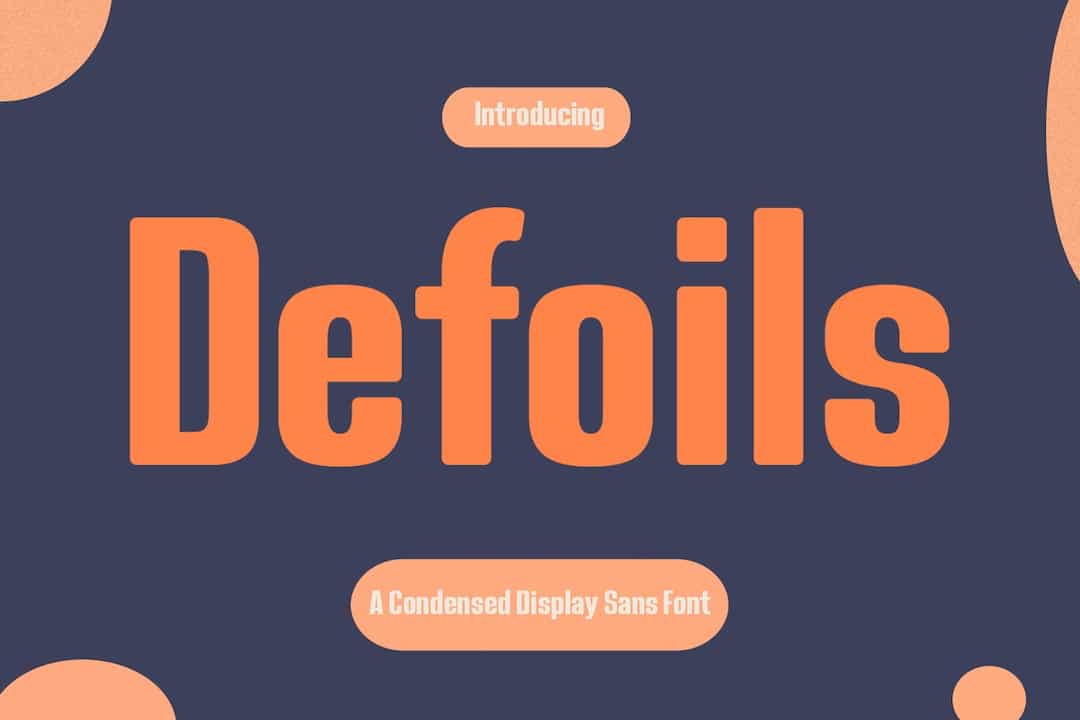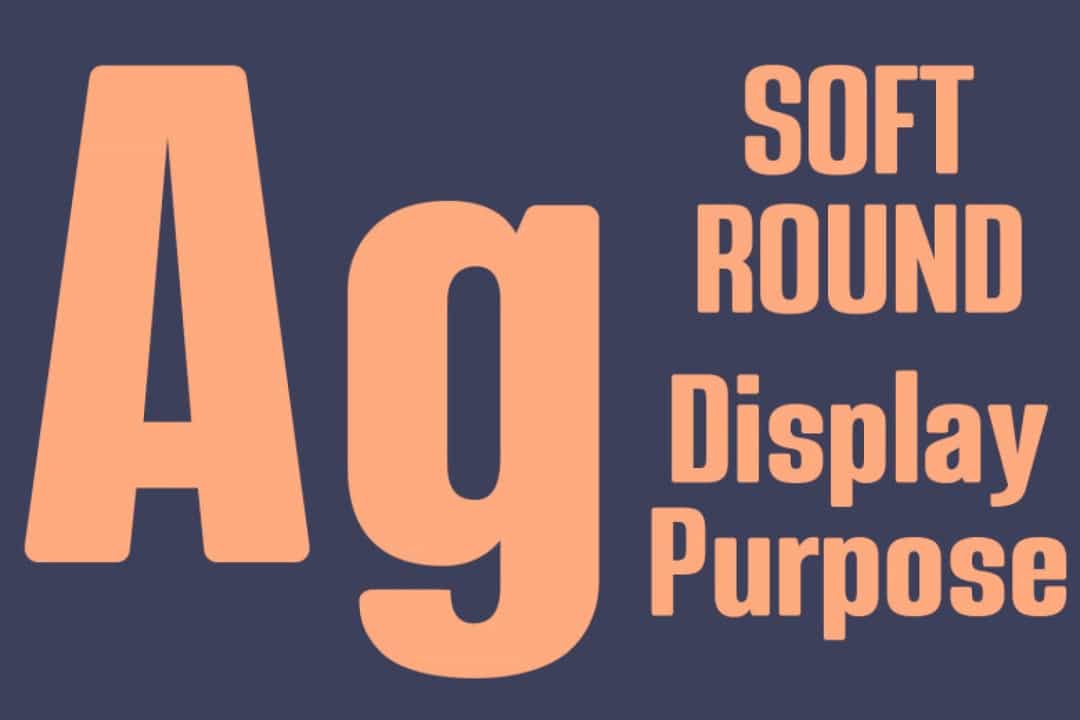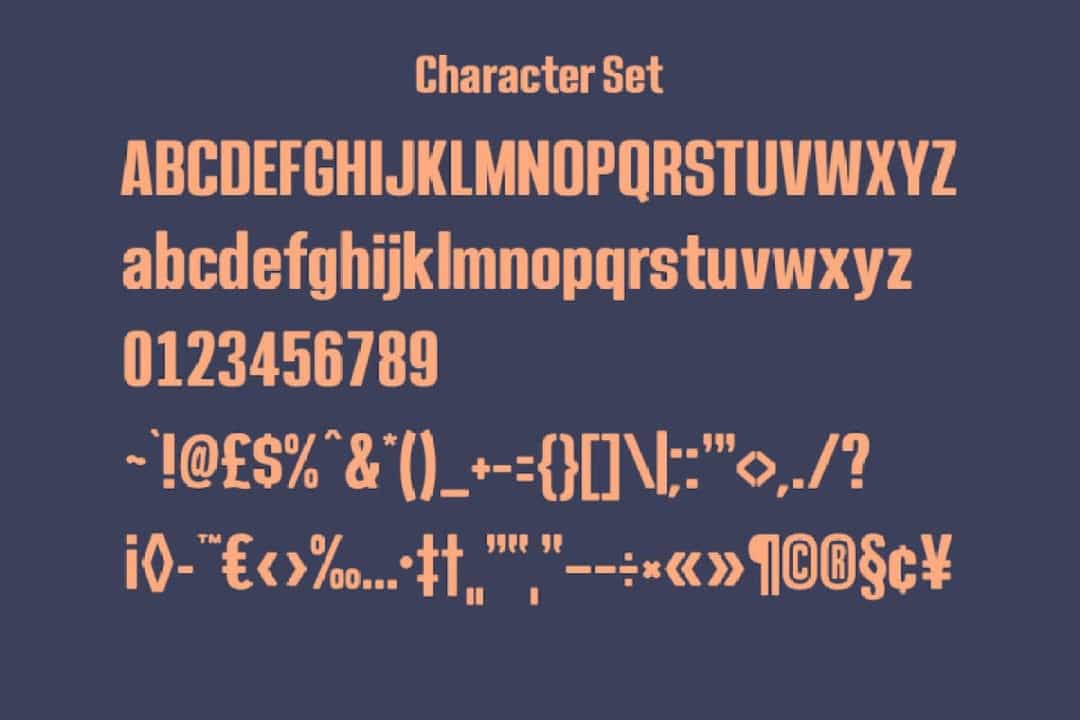
Discover Defoils Font, part of the Sans Serif Display collection—a versatile and unique font perfect for adding a personal touch to your projects. Download it for free and enjoy crafting designs with style, from invitations to social media posts. This font is available exclusively for personal use, giving you the freedom to create without limits. Unlock your creativity with Defoils Font today!
The Defoils is an old-fashioned sans serif font with a medium stroke and appealing character, featuring some ligatures and alternative fonts for you to make your creative mark on. Plus, these fonts support over 100 languages!